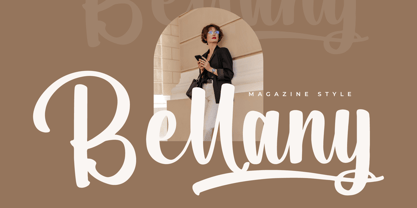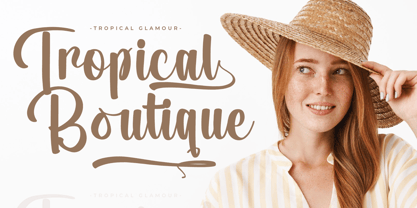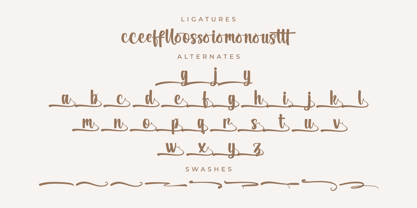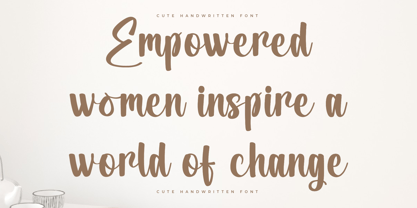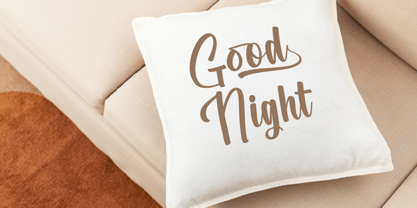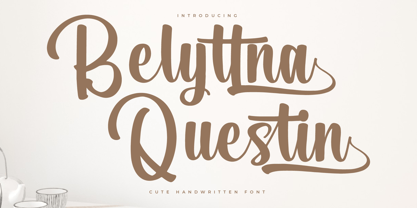
Belyttna Questin
The Belyttna Questin Font Family was designed by Heru Utama Putra and published by Letterena Studios. Belyttna Questin contains 2 styles and family package options. More about this family
Belyttna Questin – Cute Handwritten Font , from Letterena, is a Luxury Script font, suitable for any projects such as: logos, branding projects, homeware designs, product packaging, mugs, quotes, posters, shopping bags, t-shirts, book covers, name card, invitation cards, greeting cards, label, photography, watermark, special events, and all your other luxury and beautiful projects that need a Luxury serif taste.